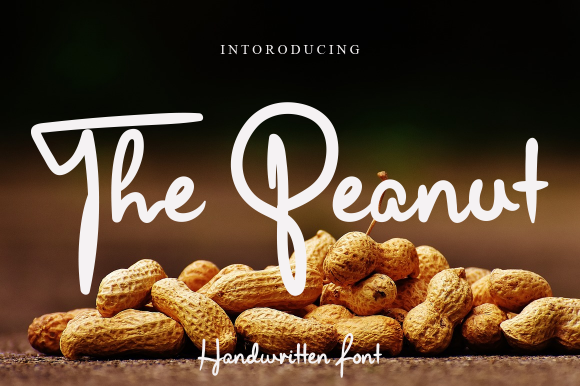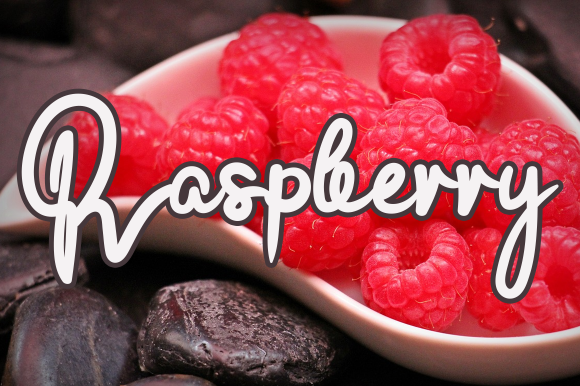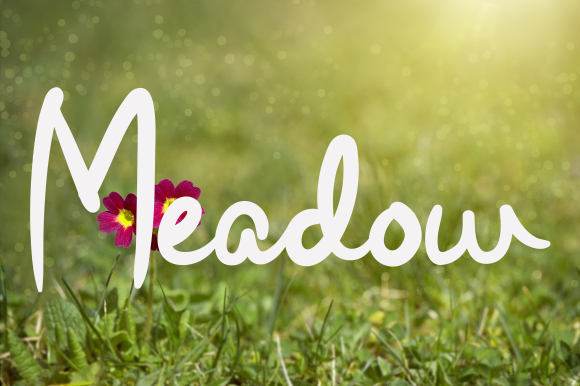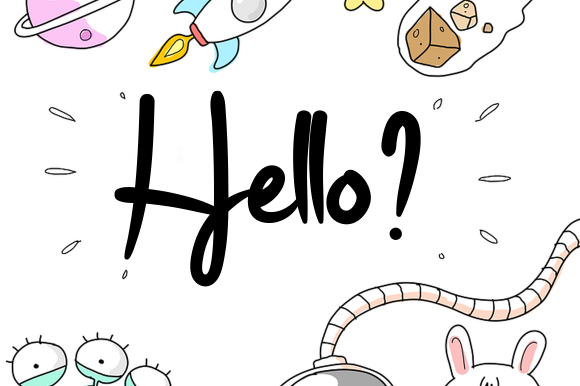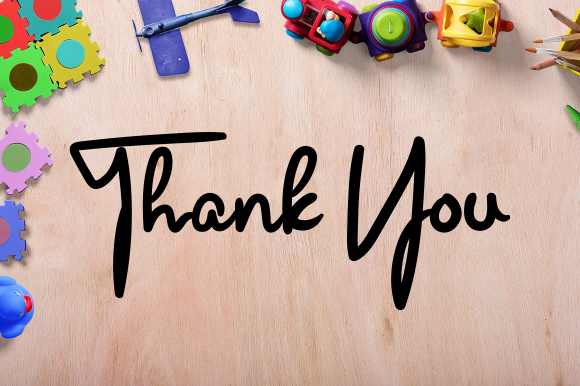
About The Peanut Font
The Peanut is a relaxed and fresh paint brushed handwritten font. Its natural and unique style makes it incredibly fitting to a large pool of designs. Have fun with this beautiful font and explore its endless variations.